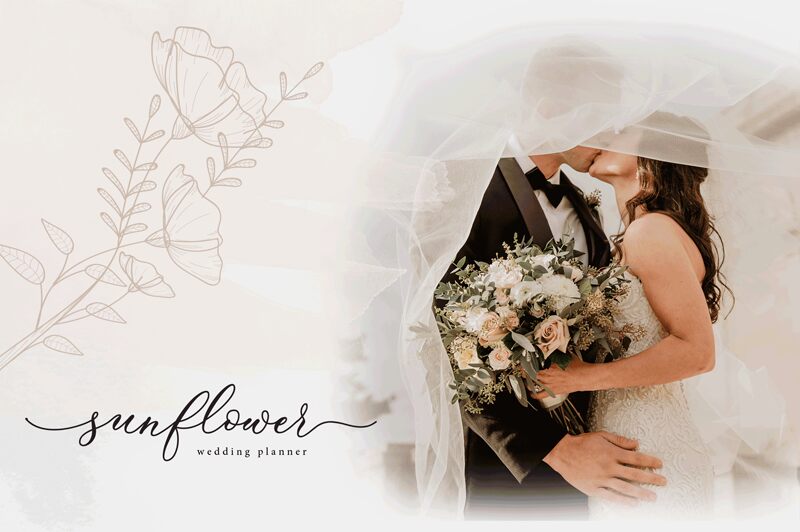
Marshella is a stunning calligraphy font designed by Sizimon.id. Its delicate and elegant features make it perfect for wedding invitations, luxury branding, and feminine designs. The light weight of the font adds a graceful touch to any project it is used in. Marshella's flowing strokes and intricate details make it ideal for creating beautiful typography art or adding a touch of sophistication to any design. Whether you're designing a chic logo or creating an eye-catching editorial layout, this semi-bold font will add a touch of charm and elegance to your work.